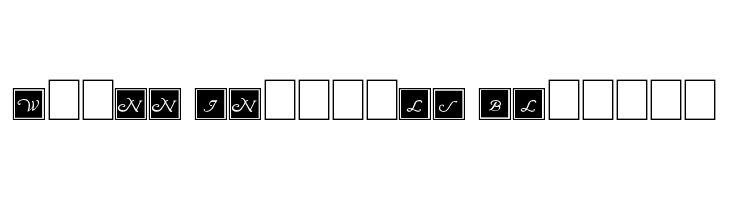
A bold, jagged font with a shattered, chaotic design.
A bold, jagged, and dynamic font with an italic slant, resembling shattered glass.
A bold, textured font with a shattered glass effect.
A bold, dynamic brush script with expressive strokes and a hand-painted look.
A classic serif font with elegant, sharp serifs and balanced proportions.
A bold serif font with strong strokes and pronounced serifs, ideal for formal use.
A refined serif font with high contrast and elegant serifs.
( Fonts by Paul Lloyd )
An elegant script font with ornate, flowing letterforms and intricate flourishes.
( Fonts by Paul Lloyd )
A decorative script font with uppercase letters in square blocks, offering a classic and elegant style.
( Fonts by Paul Lloyd )
An elegant, bold script font with ornate, flowing letterforms.